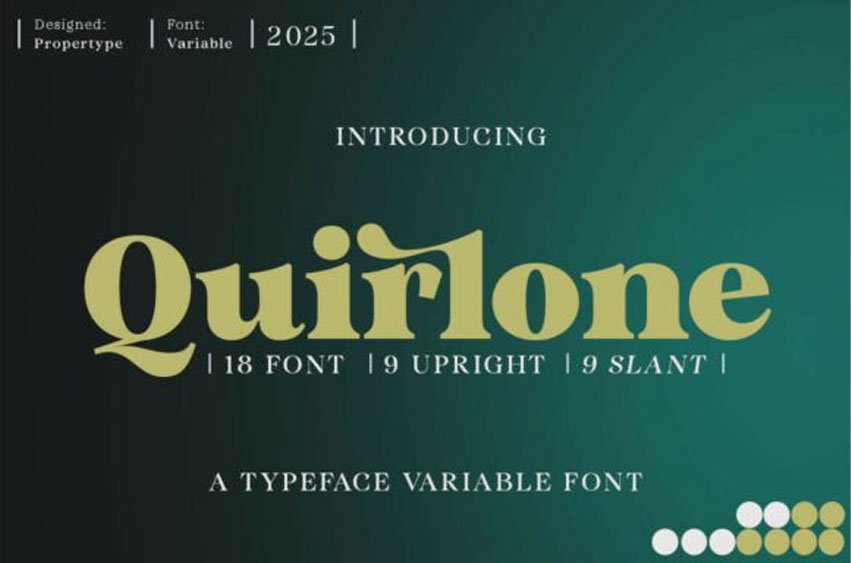
Quirlone Font is a high-contrast typeface with a transitional, contemporary, harmonious, and stylish feel. This font expands its use by offering weights ranging from Light to Extra Bold.
Its natural curves, featuring a captivating italic, are given a generous weighting, while thinner weights have reduced contrast and optical correction to create a warm, soft look.